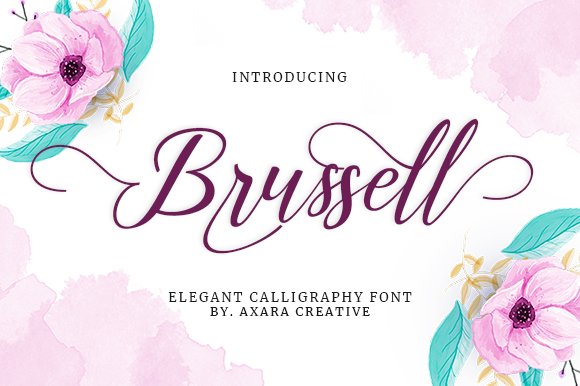
Meet Brussell, the script font that will make your modern website shine! This exquisite handwritten font effortlessly blends classic calligraphy with a contemporary twist. Its unique character adds a touch of elegance to any design, making it the perfect choice for those who seek a sophisticated and stylish aesthetic.
Unleash your creativity with Brussell's versatility! From letterheads and titles to stationery and branding, this font adapts seamlessly to a myriad of design concepts. Whether you're a seasoned designer or just starting your creative journey, Brussell is the font that will elevate your creations to new heights.
Crafted by the talented team at Axara Creative, Brussell is a testament to their passion for creating fonts that inspire and empower. They meticulously designed each letterform to convey a sense of charm and sophistication, ensuring that your words leave a lasting impression.